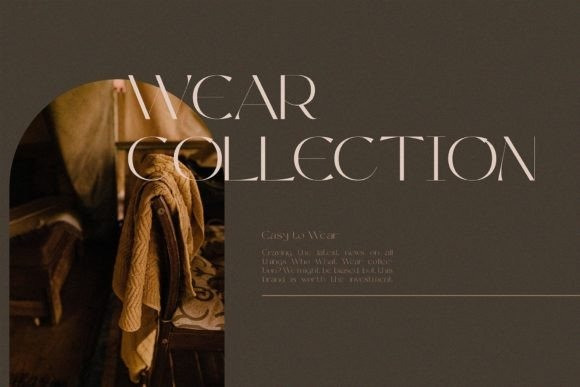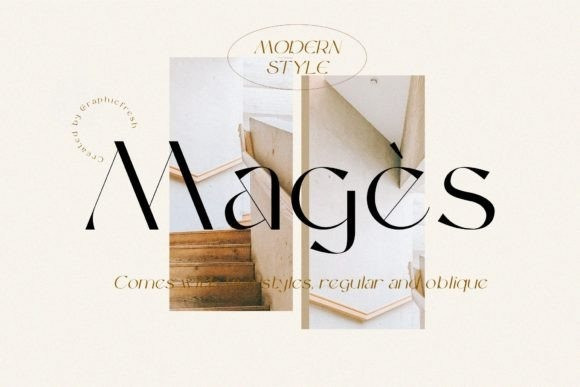
Magès Font
Magès Font is a modern and stylish serif font. Incredibly trendy yet still maintaining a touch of elegance, this font will suit perfectly a wide range of chic designs.